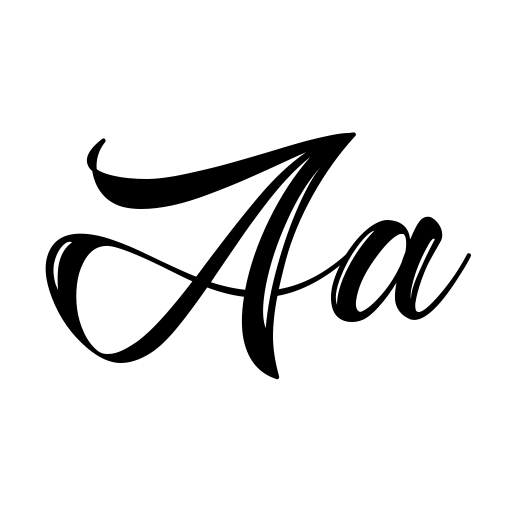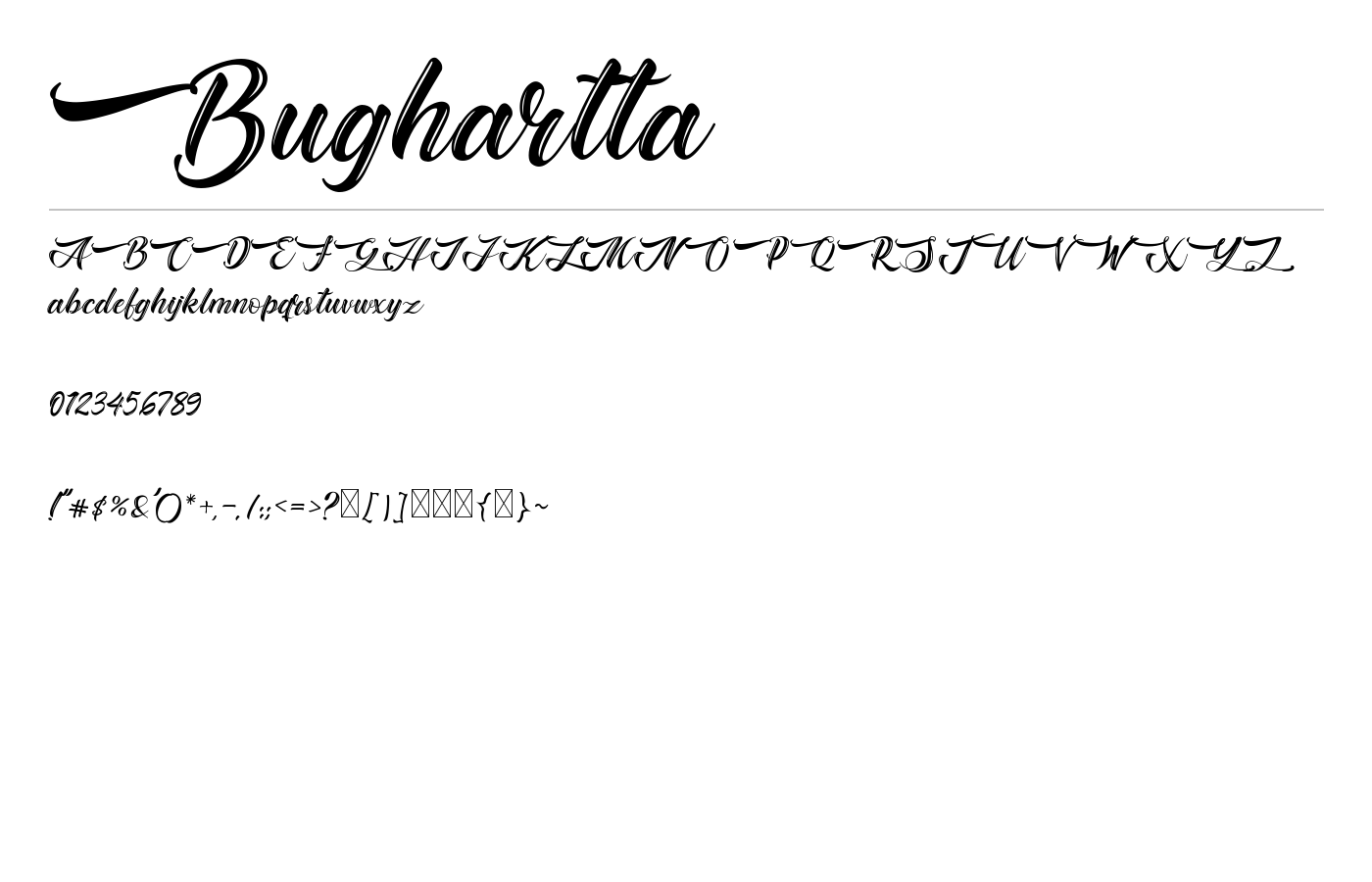
Bughartta is an elegant script font featuring flowing, connected letterforms with a graceful, hand-lettered style. It has a moderate contrast in stroke weight and a slightly condensed width, making it ideal for sophisticated branding, invitations, and decorative headlines where a personal and stylish touch is desired. This font’s smooth curves and refined details bring a sense of luxury and creativity to any design.
Bughartta Font